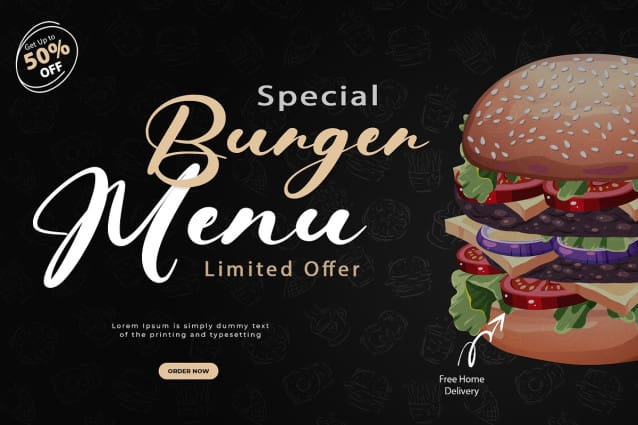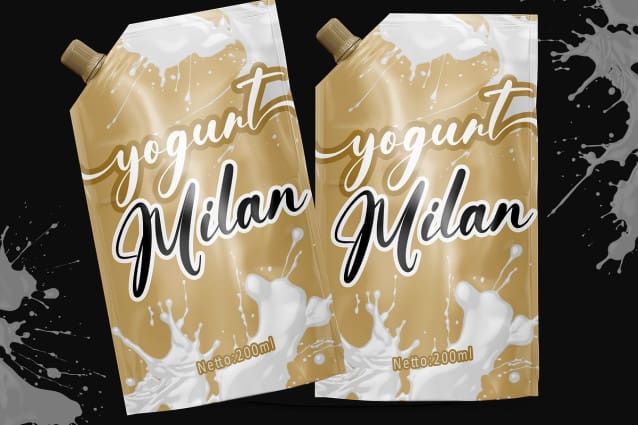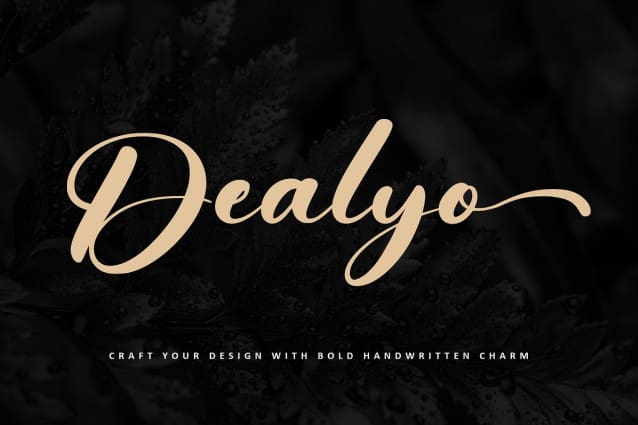
Dealyo Script Font
Dealyo Script Font, where boldness meets whimsy in this handwritten font. Perfect for posters, branding, packaging, or any creative project needing a personal touch, Dealyo adds a unique flair. Its PUA encoding grants access to a variety of glyphs and swashes, ensuring exceptional outcomes for your designs. Embrace the rustic charm and let Dealyo elevate your creations with its bold elegance.